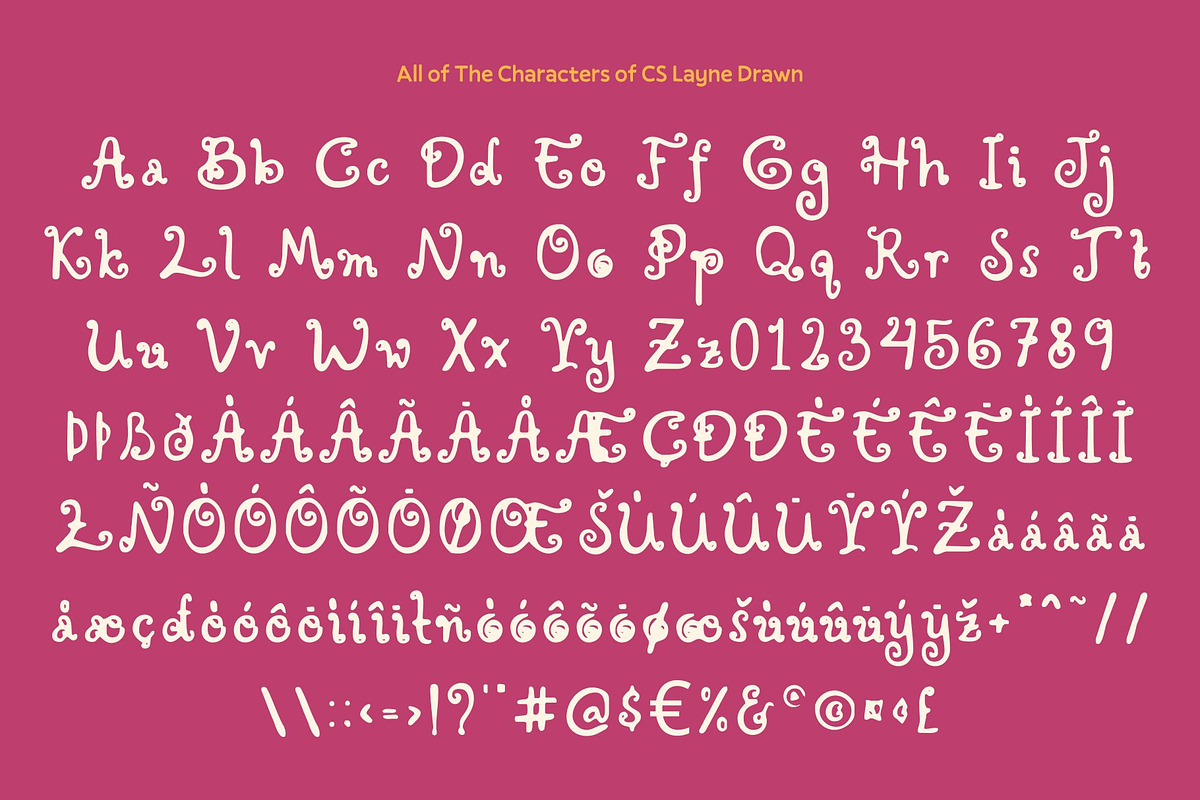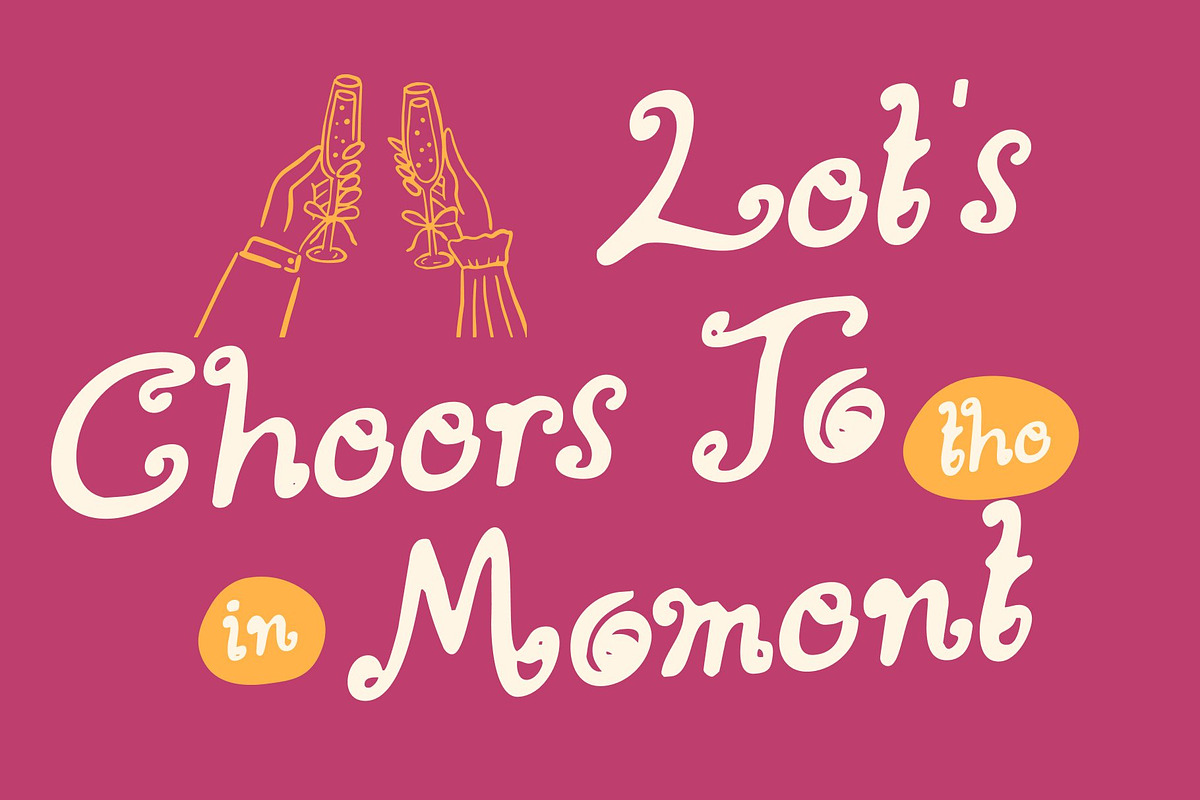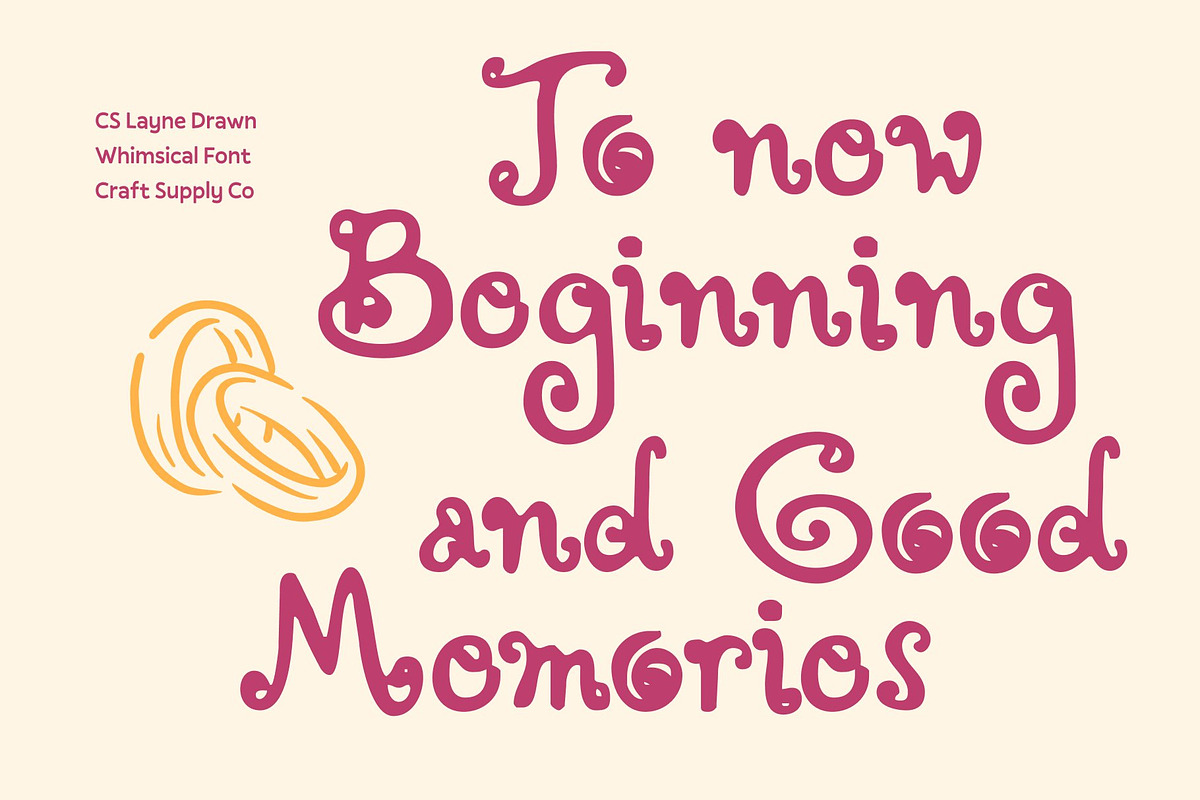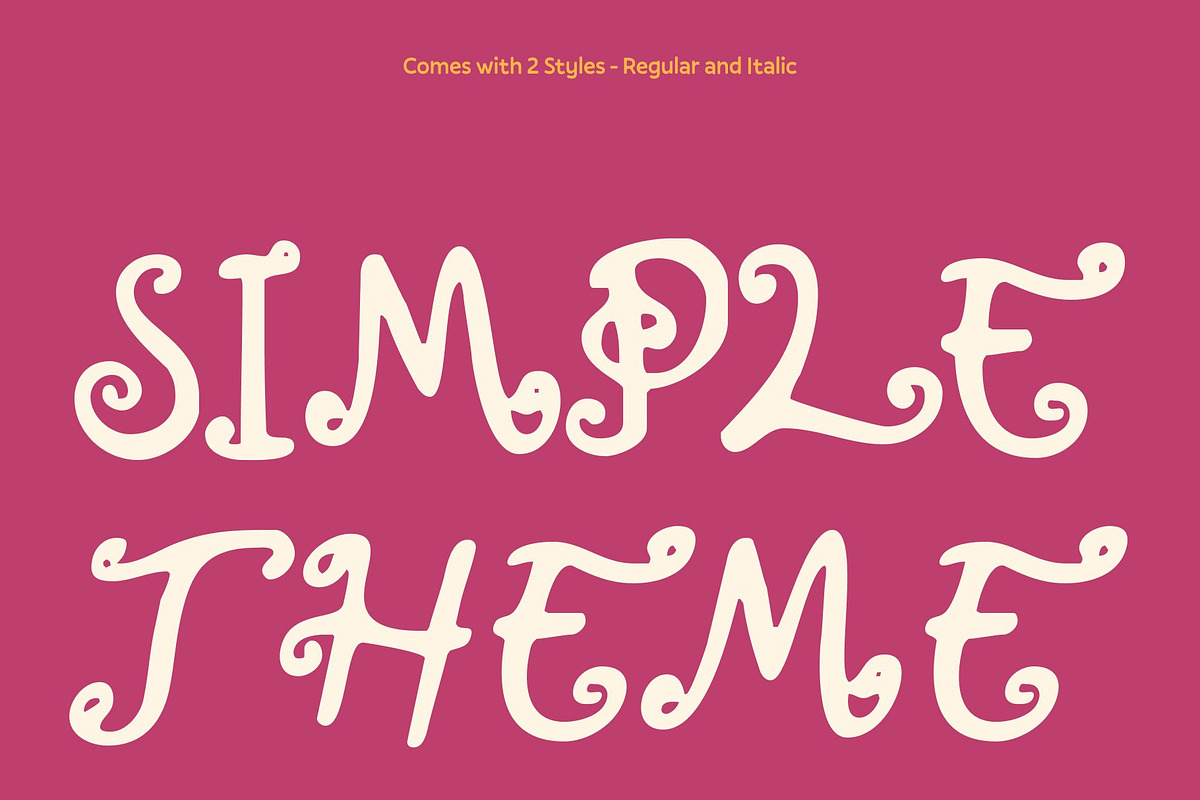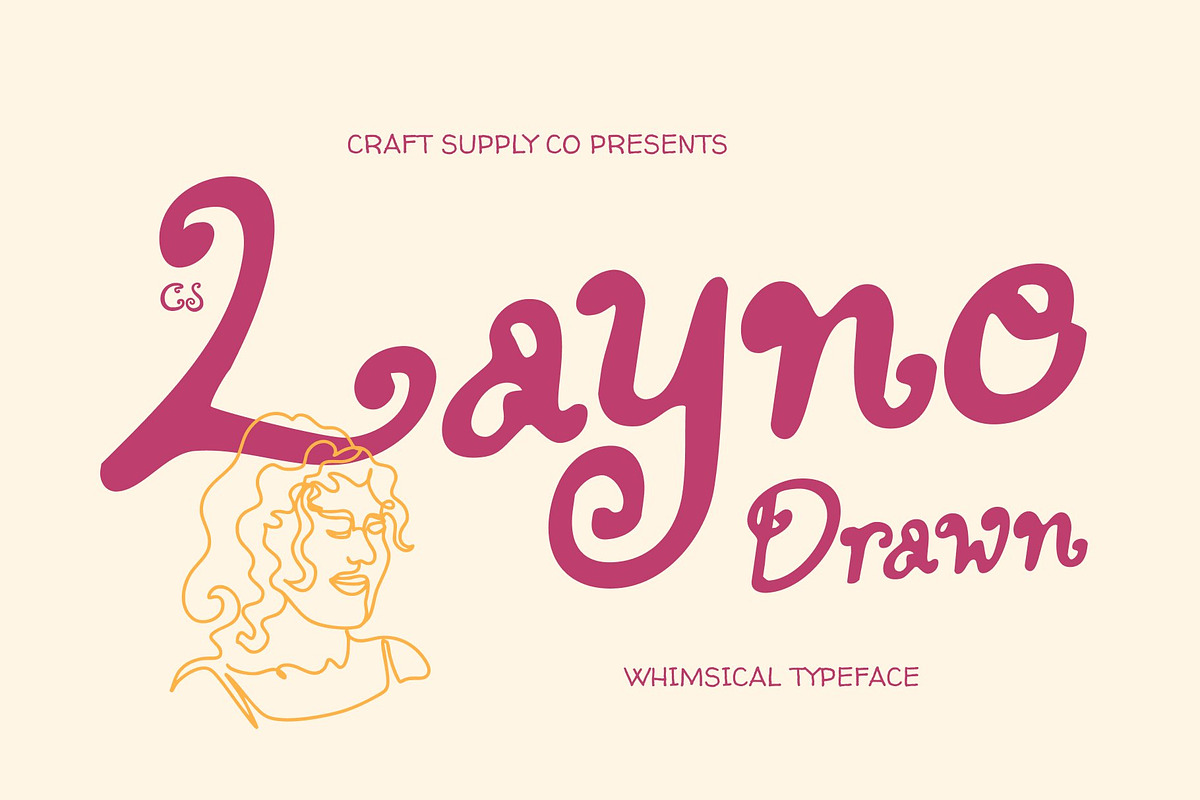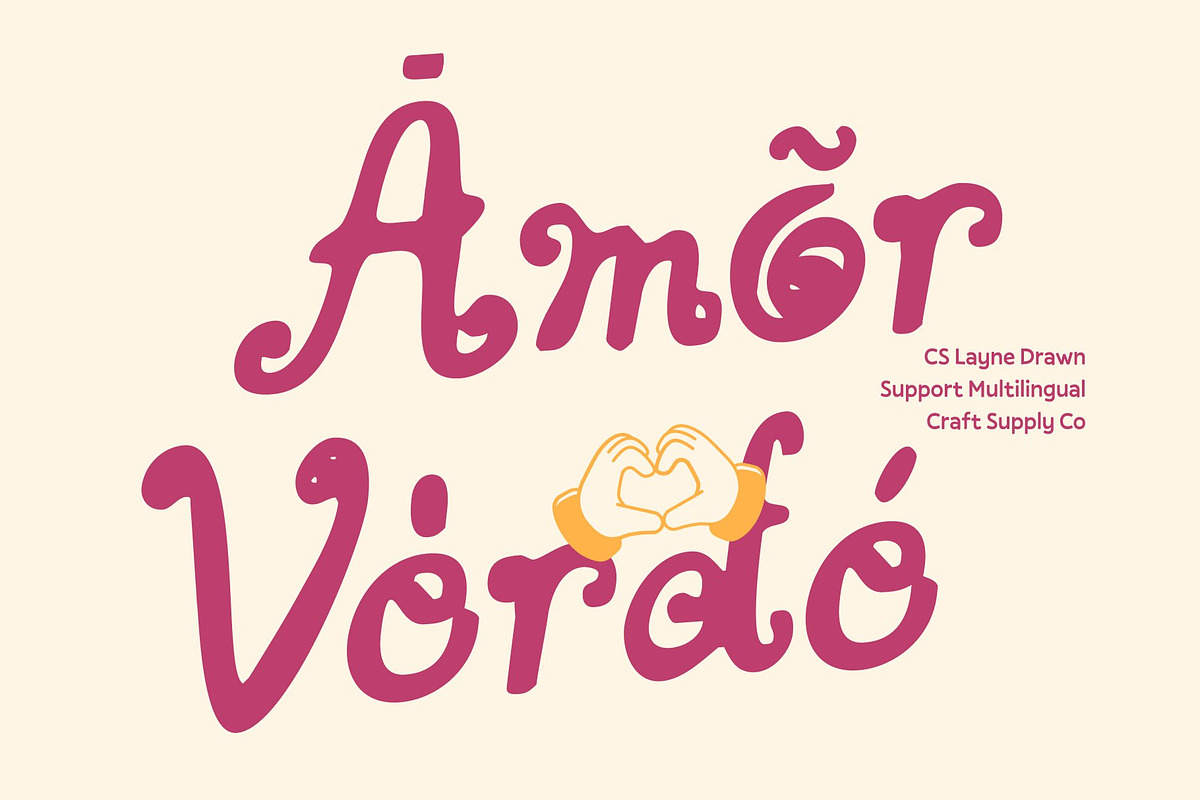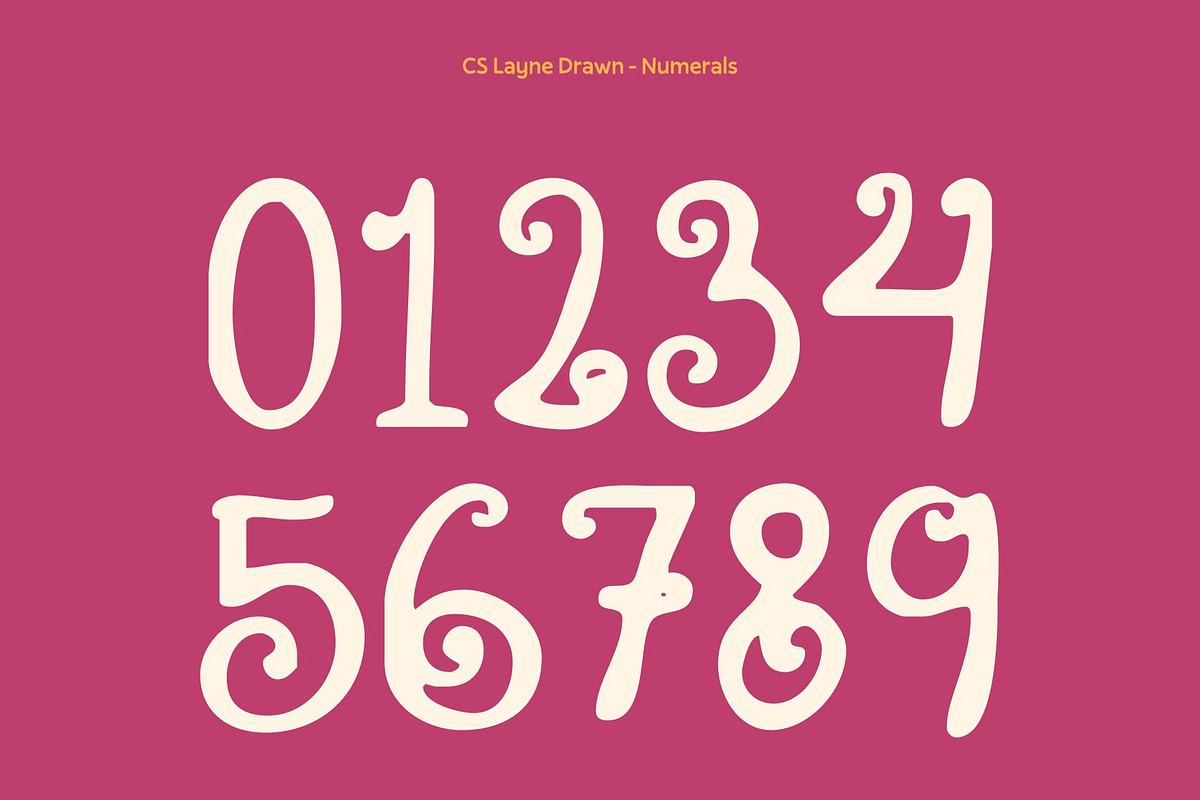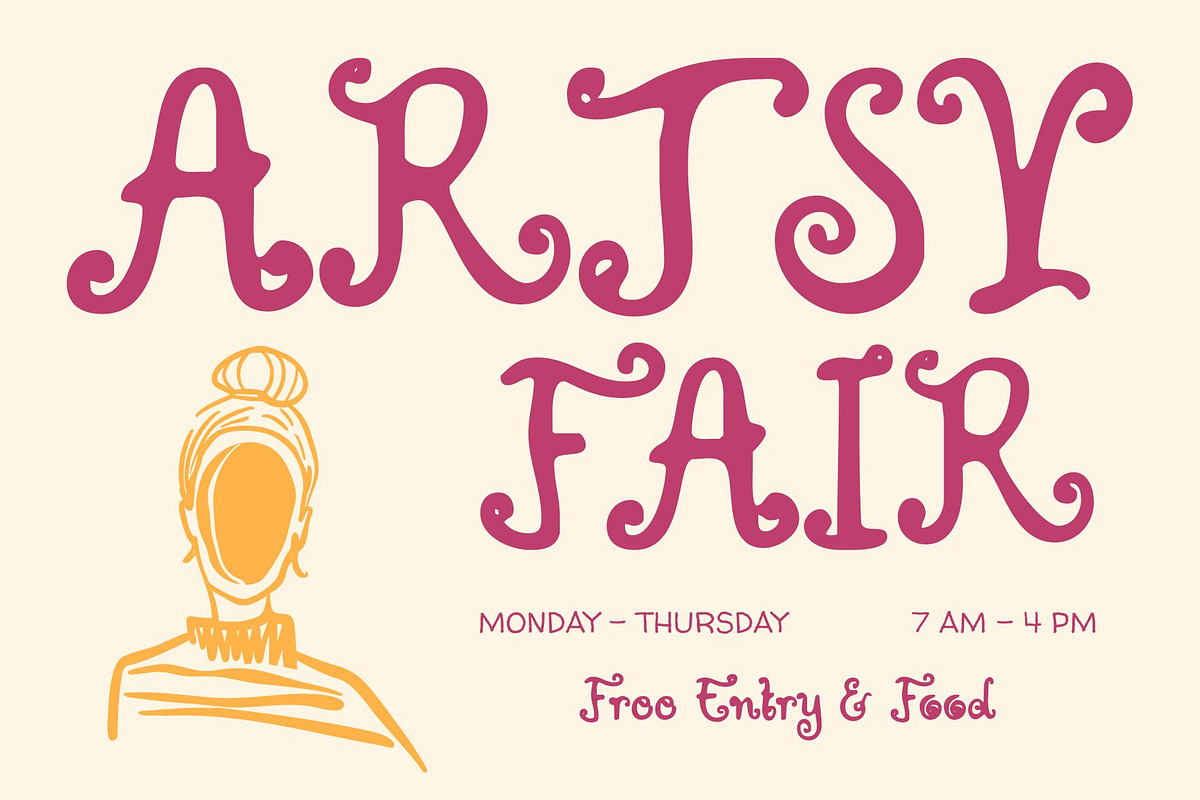
CS Layne Drawn
CS Layne Drawn – Whimsical Energy with Fantasy Charm
Playful Display Font with Personality This is a distinctive display font filled with imaginative spirit and fantasy charm. Its whimsical letterforms and creative details make every word visually captivating, transforming ordinary text into magical, expressive statements. Perfect for designers seeking typography with energy, character, and individuality.
Hand-Drawn Texture for Artistic Warmth Each stroke carries a subtle drawn texture, giving the font a handcrafted, organic feel. The textured edges and playful imperfections add authenticity and personality, making every design feel lively, personal, and rich with artistic flair. This handcrafted quality enhances creativity across all projects.
Ideal for Whimsical and Creative Projects From fantasy posters and storytelling visuals to playful branding and expressive music designs, this font thrives in imaginative spaces. Its charming forms and vibrant energy instantly capture attention while maintaining a soft, approachable appeal for versatile creative applications.
Expressive Typography with Magical Charm This font perfectly balances whimsical artistry with visual readability. Its fantasy-inspired shapes and lively texture evoke delight, wonder, and playful energy making it ideal for projects that aim to enchant, inspire, and leave a lasting impression.